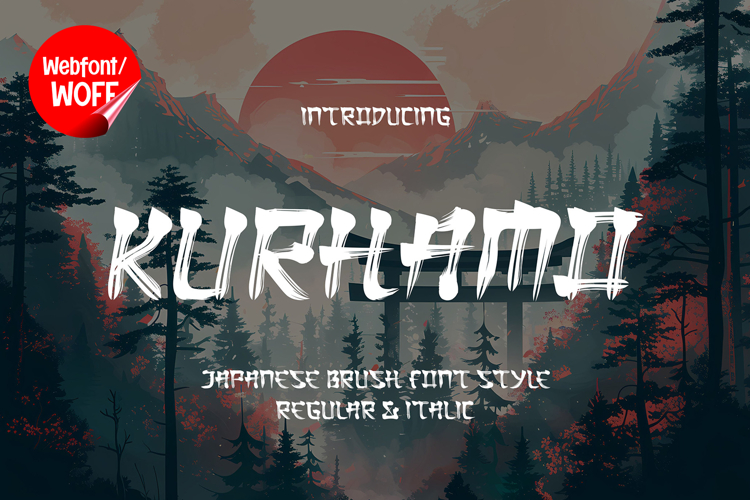
Kurhamo | Japanese Handbrush Style Webfont for Artistic Web
Kurhamo is a Japanese handbrush style webfont designed to bring expressive strokes and cultural-inspired aesthetics into modern website design. Inspired by traditional brush techniques, this font features dynamic lines and natural variations that reflect the movement of hand-painted lettering. It is an excellent choice for projects that require an artistic, elegant, and distinctive visual identity.
Kurhamo includes a complete set of uppercase characters designed with handbrush-inspired strokes. Each letter carries a sense of motion and organic flow, creating a visually rich and expressive appearance. These unique forms are ideal for headlines, banners, hero sections, and featured content where a strong artistic impression is needed.
In addition to letters, the font includes numbers and punctuation, allowing flexible usage across various parts of a website. It works well for branding text, promotional content, product displays, and interface highlights. Each character maintains a consistent brush style, ensuring a cohesive and unified visual identity throughout the design.
With multilingual support, Kurhamo includes a wide range of accented characters, making it suitable for international websites and global audiences. This allows content to be presented clearly across different languages while preserving the expressive brush aesthetic.
The Japanese handbrush style of Kurhamo makes it especially suitable for cultural websites, creative portfolios, restaurant branding, fashion projects, and artistic presentations. Its flowing strokes and handcrafted feel add authenticity and elegance, helping designs stand out in visually competitive environments. It is also a strong choice for branding that emphasizes creativity and tradition.
Despite its expressive and textured appearance, Kurhamo is designed with readability in mind. The spacing and proportions of each character are carefully balanced to ensure clarity, particularly in display sizes. This makes it effective for impactful headings and short content elements where both style and usability are important.
Kurhamo is a webfont that combines traditional brush inspiration with modern digital performance. Its natural strokes, artistic flow, and cultural influence create a distinctive typographic presence that enhances website design. For projects that require an elegant, expressive, and visually engaging font, Kurhamo offers a powerful and refined solution.